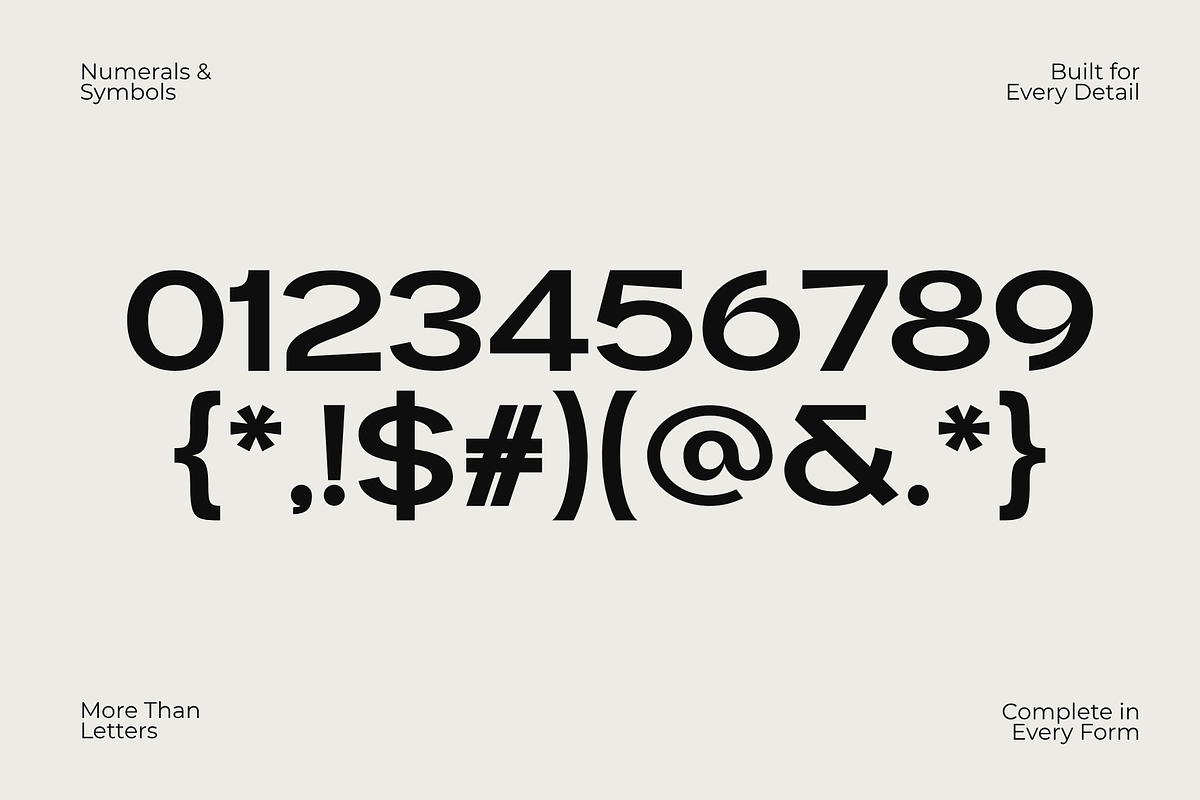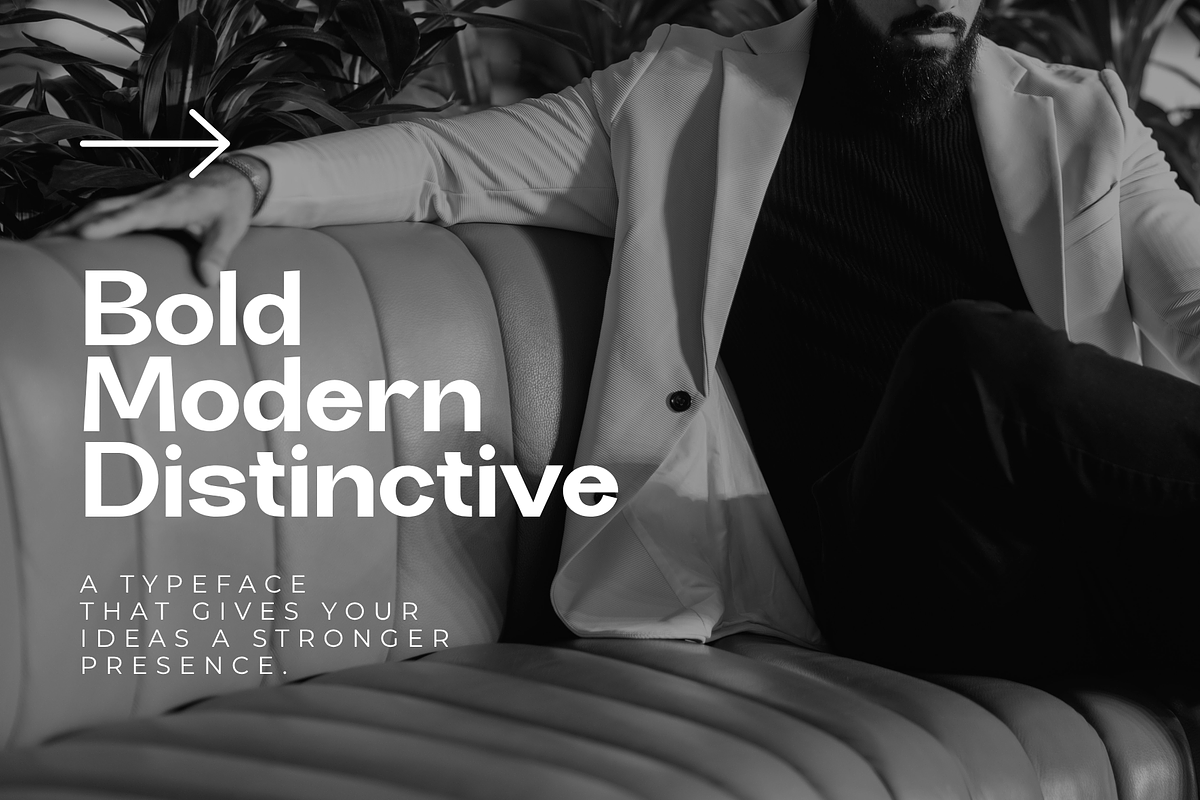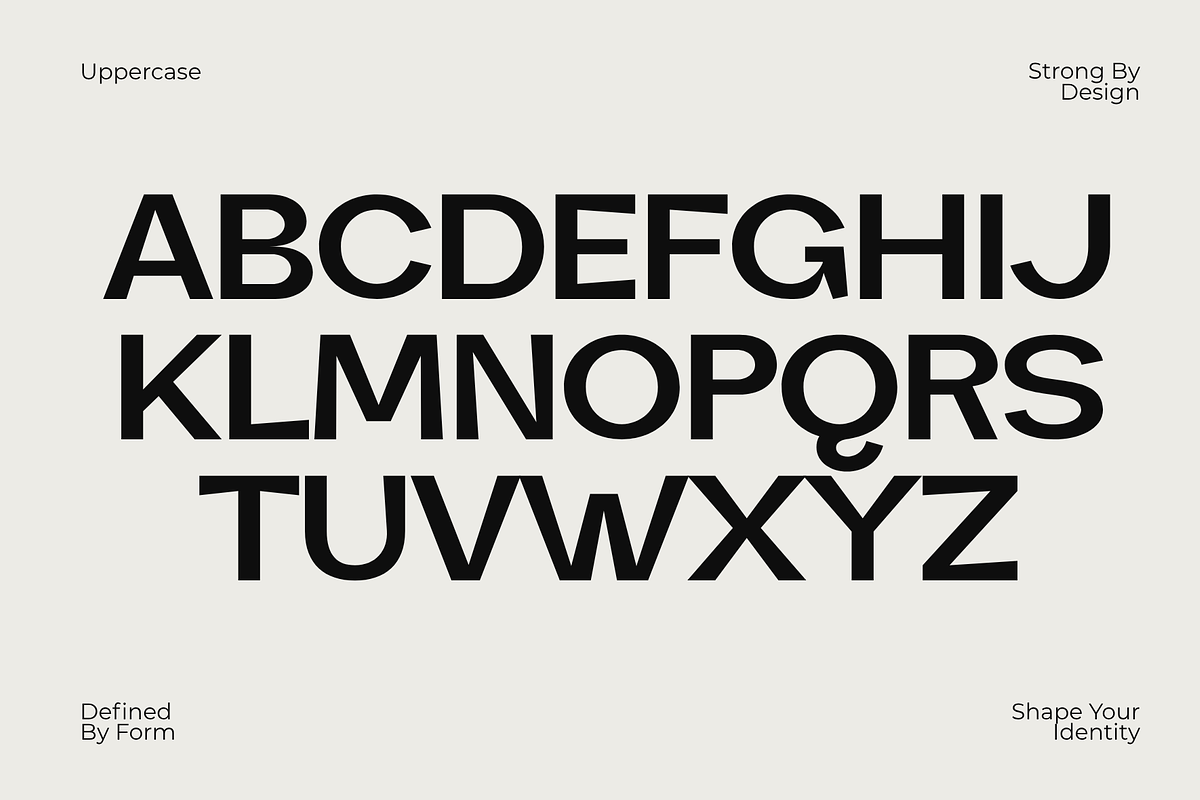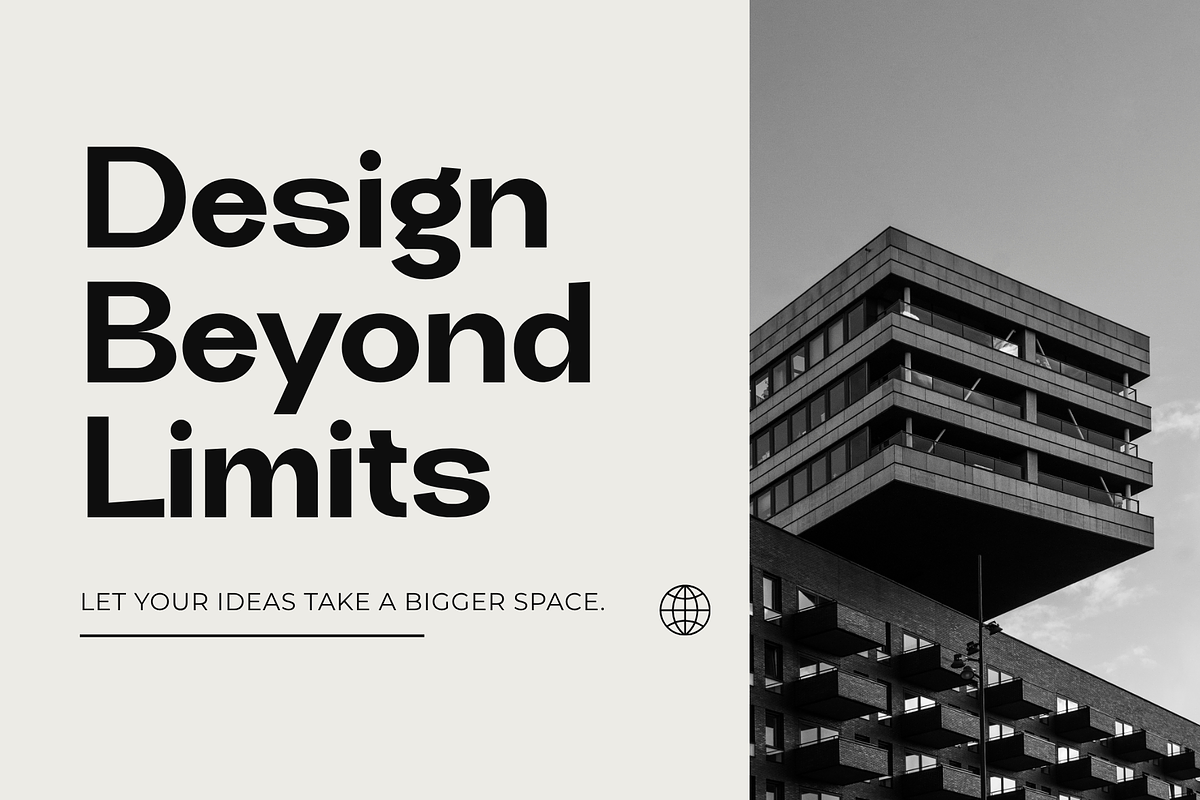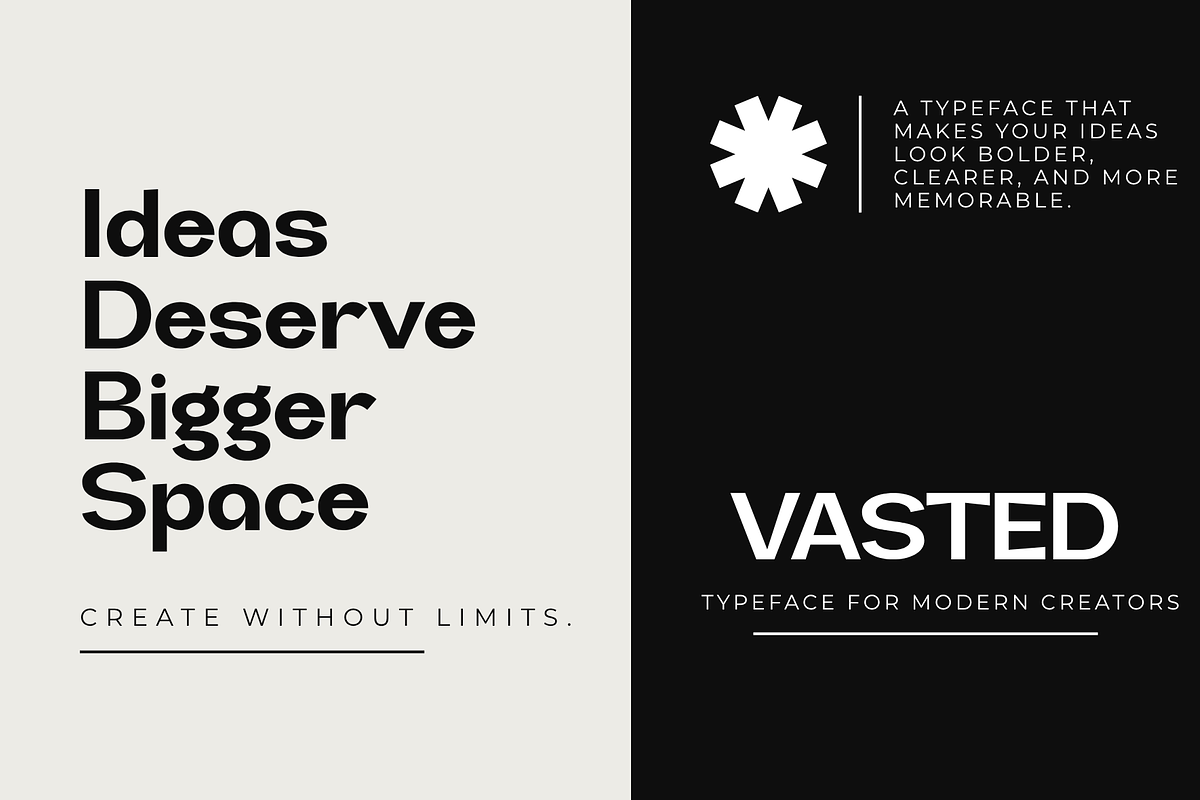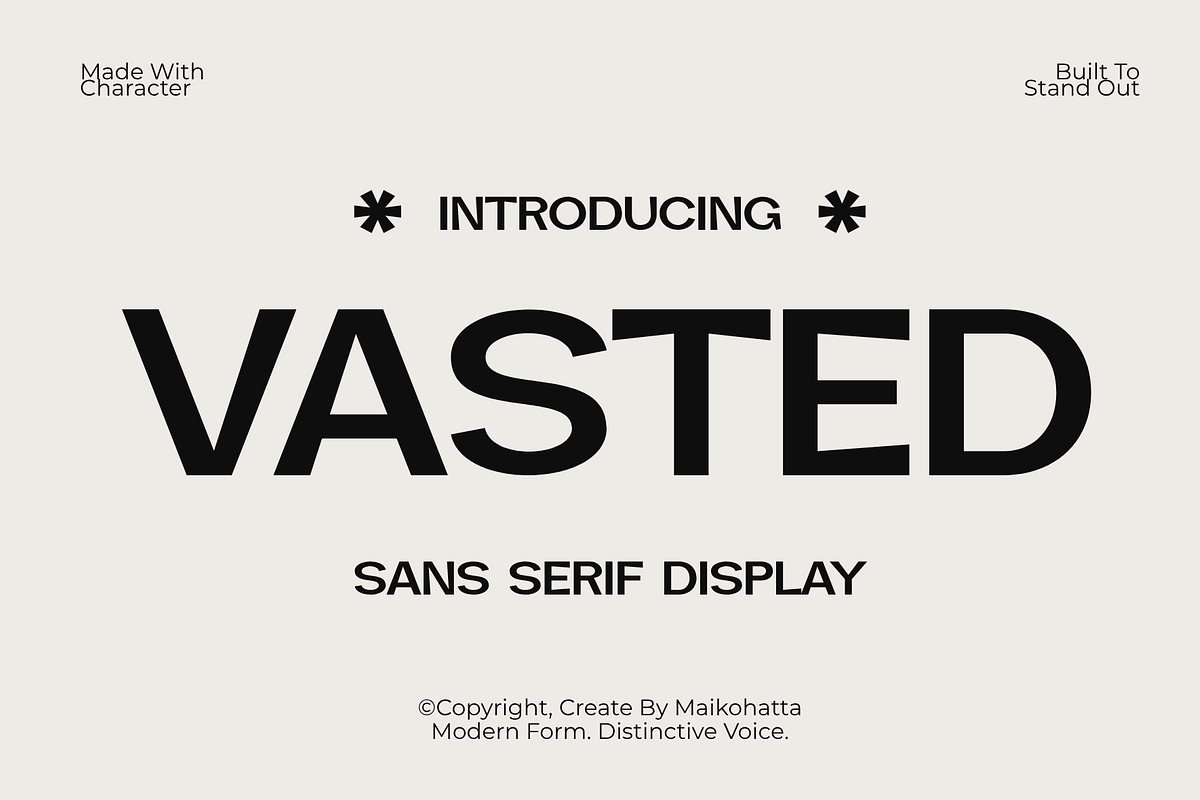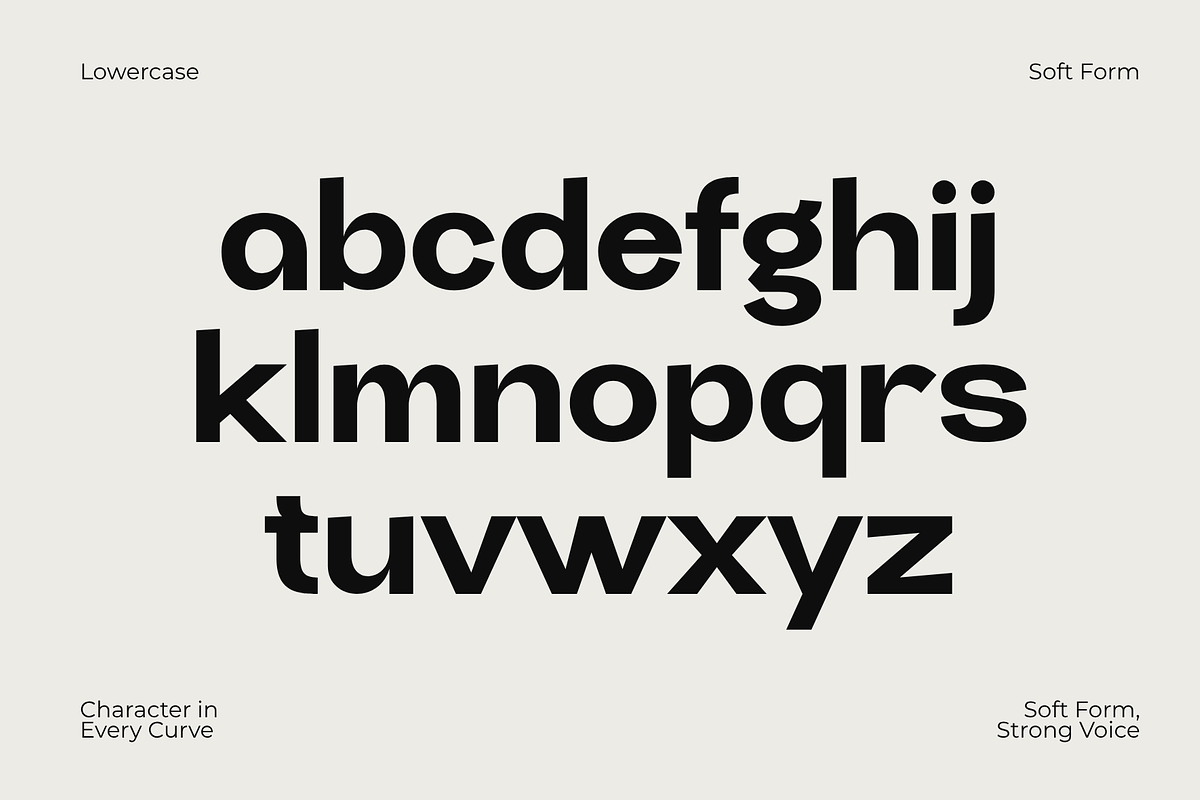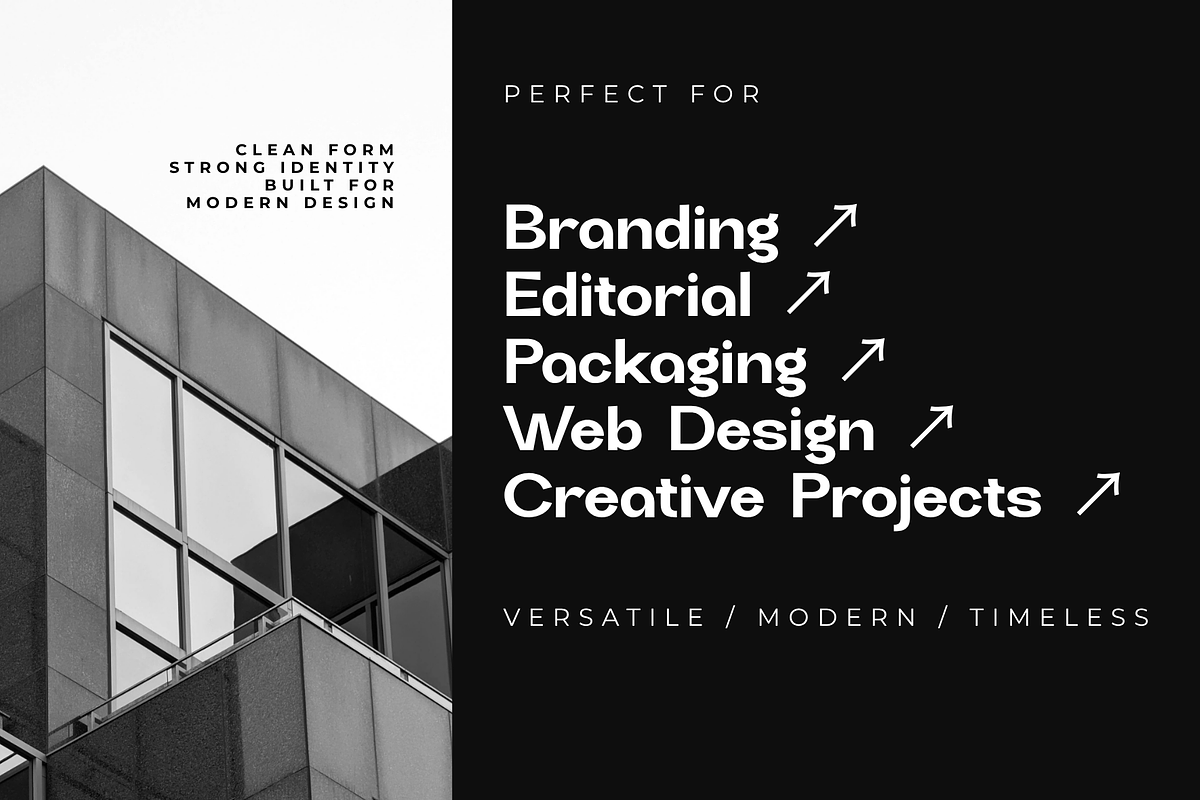
Vasted – Bold Sans Serif Display
Vasted is a bold and contemporary sans serif display font created for designers who want to make a strong, confident, and memorable visual statement. Featuring heavy letterforms, clean geometric construction, and a distinctive modern personality, Vasted combines simplicity with powerful visual presence. Designed with a strong and balanced structure, Vasted works exceptionally well for large-scale typography where impact and readability are essential. Its bold appearance makes it an excellent choice for headlines, titles, logos, branding projects, posters, editorial designs, packaging, and advertising materials. The clean sans serif style also gives it a versatile character that can adapt to both minimalist and expressive design concepts. Whether you are creating a powerful brand identity, an eye-catching poster, a striking editorial headline, or a modern advertising campaign, Vasted brings a strong typographic personality while maintaining a clean and professional appearance.